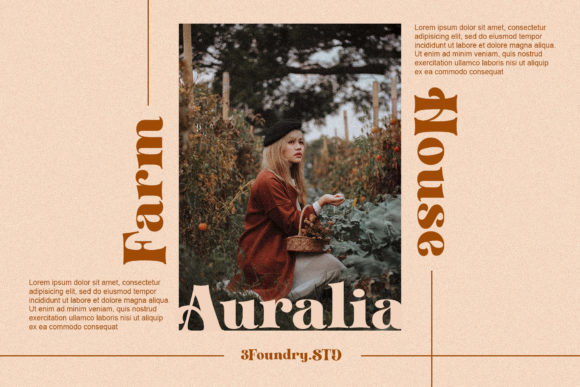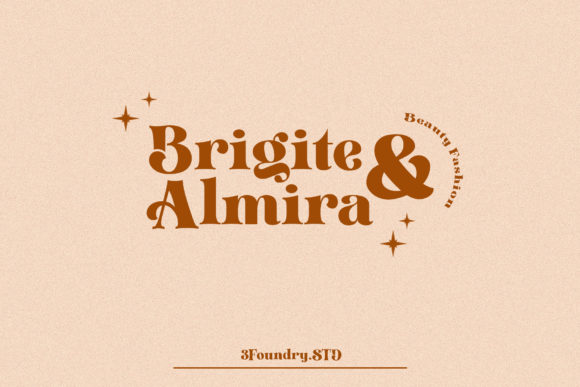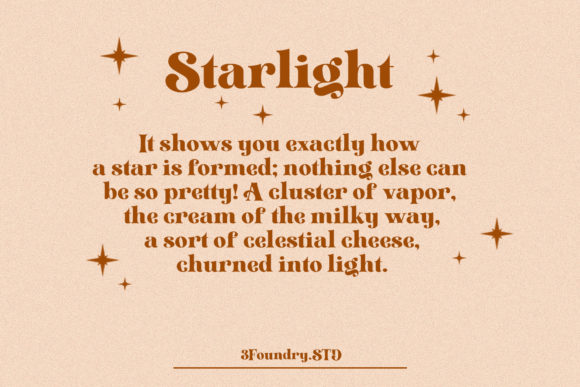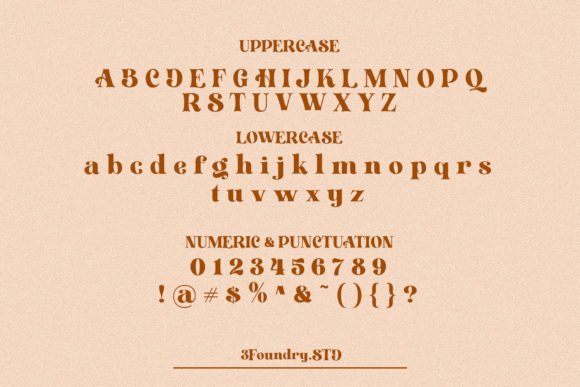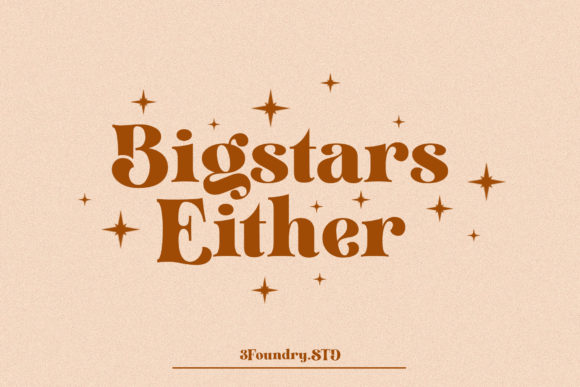
Introducing Bigstars Either Font: Elevate Your Designs with a Modern Serif Twist
In the world of typography, a font can make or break a design project. The right font can elevate your creative vision, adding a touch of sophistication and elegance. If you’re on the hunt for a font that embodies modernity and versatility, look no further than Bigstars Either. This expertly crafted serif font is poised to become your go-to choice for bringing your most ambitious projects to life.
The Modern Feel of Bigstars Either
Bigstars Either is a serif font that defies traditional conventions, infusing a classic style with a modern edge. Its unique design elements make it an excellent choice for designers and crafters seeking to add a fresh spin to their work. Whether you’re creating a logo, branding materials, or digital content, Bigstars Either is the perfect companion to help you achieve your creative goals.
Masterful Design for Endless Possibilities
What sets Bigstars Either apart is its masterful design. Every detail, from the subtle curves to the precise lines, has been meticulously crafted to ensure that this font can adapt to any project. Its versatility knows no bounds, making it suitable for a wide range of applications, including:
- Logo design: Create a lasting impression with a unique and memorable logo that showcases your brand’s personality.
- Branding materials: Consistency is key in branding. Bigstars Either helps you maintain a cohesive visual identity across all your materials.
- Digital content: Elevate your website, blog, or social media graphics with a font that exudes professionalism and style.
- Print materials: From brochures to business cards, Bigstars Either adds a touch of sophistication to any printed material.
Bring Your Creative Ideas to Life
Bigstars Either is more than just a font; it’s a tool that unlocks your creative potential. Its modern feel and adaptable design empower you to experiment with different styles and ideas, pushing the boundaries of what’s possible. With Bigstars Either, you can:
- Experiment with various design combinations to find the perfect look for your project.
- Convey complex ideas with clarity and precision, thanks to its excellent legibility.
- Add a personal touch to your work, making it stand out in a crowded creative landscape.
Why Choose Bigstars Either?
When it comes to selecting a font for your project, there are countless options available. So, why choose Bigstars Either? Here are just a few compelling reasons:
- Unique Style: Bigstars Either boasts a distinctive style that sets it apart from more traditional serif fonts.
- Versatility: Its adaptability makes it suitable for a wide range of projects and applications.
- Legibility: Despite its modern twist, Bigstars Either maintains excellent legibility, ensuring that your message is always clear.
- Ease of Use: Bigstars Either is designed to be user-friendly, making it easy to incorporate into your workflow.
Bigstars Either is a game-changer for designers and crafters looking to elevate their projects with a modern serif font. Its unique blend of classic and contemporary design elements makes it an invaluable addition to any creative toolkit. Whether you’re aiming to create a bold statement or a subtle impression, Bigstars Either is the perfect partner to help you achieve your vision. Discover the potential of Bigstars Either and take your designs to new heights.